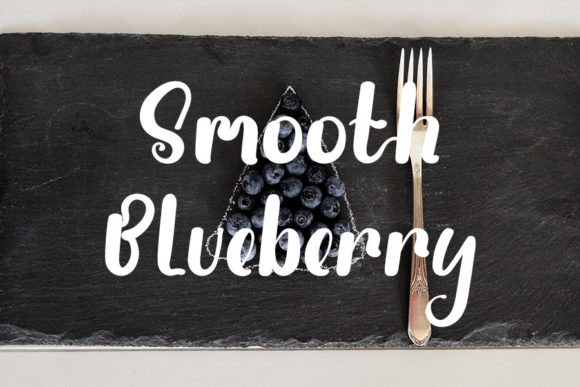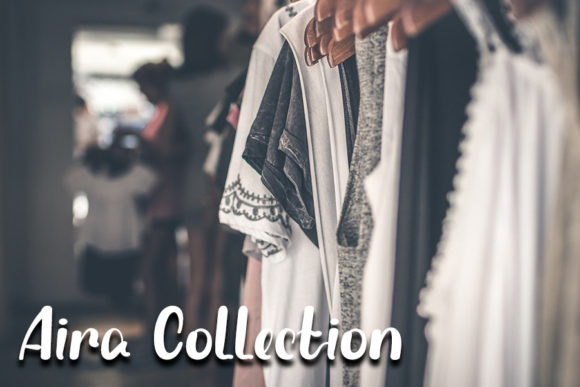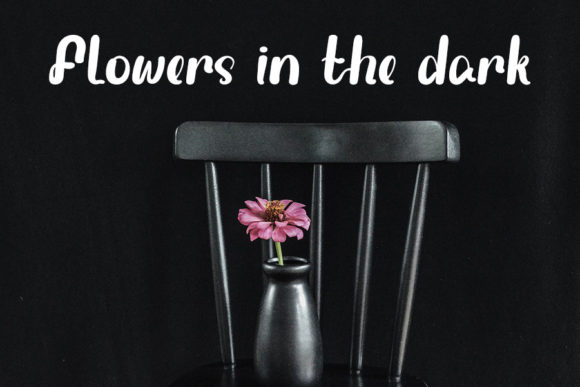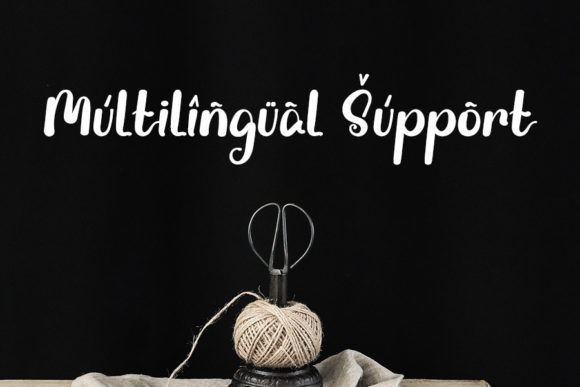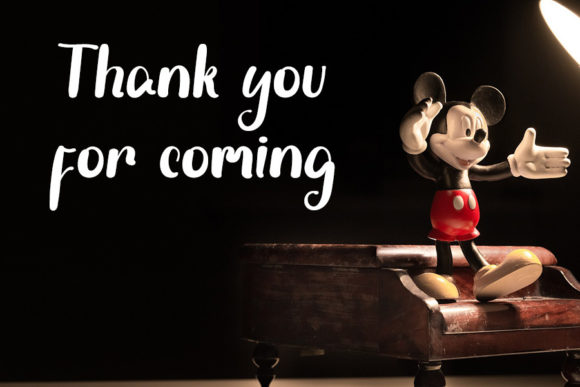
Cinematic Font: Elevate Your Designs with Timeless Elegance
In the world of typography, a well-crafted font can make all the difference in elevating your design projects from ordinary to extraordinary. If you’re a designer, craftsperson, or simply a creative enthusiast, you’re likely always on the lookout for fonts that can add a touch of sophistication and style to your work. That’s where the Cinematic Font comes in – a stylish handwritten font that embodies the perfect blend of contemporary flair and timeless elegance.
Inspired by Timeless Classic Calligraphy
The Cinematic Font draws inspiration from the world of classic calligraphy, where the art of beautiful handwriting meets modern design sensibilities. With its roots in traditional calligraphy, this font boasts an impeccable form that exudes refinement and poise. Whether you’re working on a logo, branding project, or simply looking to add some flair to your digital content, the Cinematic Font is sure to impress.
Balanced and Varied: The Key to Versatility
One of the standout features of the Cinematic Font is its balanced and varied design. This font has been carefully crafted to offer a range of styles and nuances, making it incredibly versatile for a wide range of applications. From elegant headings and titles to more intricate design elements, the Cinematic Font adapts seamlessly to any design brief. Whether you’re looking to create a cohesive brand identity or simply want to add some visual interest to your projects, this font has got you covered.
Contemporary Atmosphere Meets Classic Charm
The Cinematic Font strikes the perfect balance between contemporary atmosphere and classic charm. Its modern sensibilities make it an ideal choice for designers and crafters looking to create fresh and innovative designs, while its classic undertones ensure that your work will stand the test of time. Whether you’re working on a modern branding project or a more traditional design endeavor, this font is sure to bring a touch of sophistication and style to your work.
Enhance the Beauty of Your Projects
The Cinematic Font has been designed with one goal in mind: to enhance the beauty of your projects. With its elegant lines, refined curves, and impeccable form, this font is the perfect choice for designers and crafters looking to elevate their work to the next level. Whether you’re working on a personal project or a client brief, the Cinematic Font is sure to help you create stunning designs that will leave a lasting impression.
The Cinematic Font is a perfect fit for designers and crafters looking to add a touch of elegance and sophistication to their work. Whether you’re a seasoned professional or just starting out, this font is sure to become a staple in your design toolkit. From graphic designers and branding experts to crafters and DIY enthusiasts, the Cinematic Font is an versatile and stylish choice that’s sure to inspire.
• Stylish handwritten font with a contemporary atmosphere and impeccable form
• Inspired by timeless classic calligraphy for a touch of elegance and sophistication
• Balanced and varied design for versatility and flexibility
• Perfect for a range of applications, from branding and logos to digital content and more